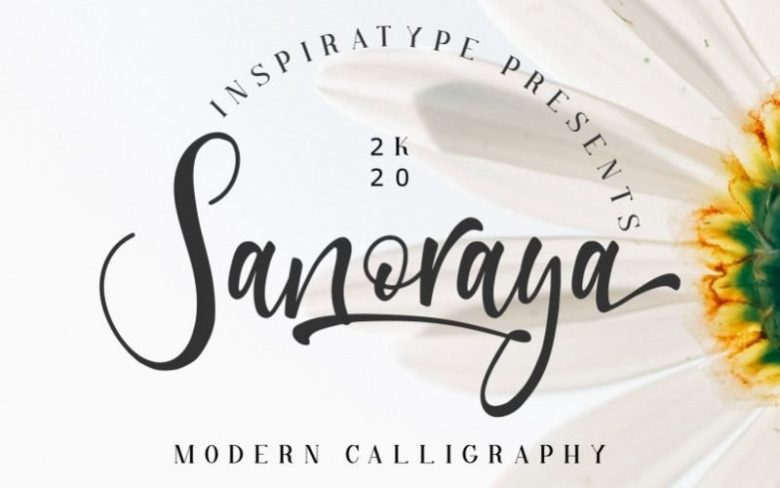
Sanoraya Calligraphy Font
Sanoraya is an incredibly distinct, delicate and timeless handwritten font. It looks stunning on wedding invitations, thank you cards, quotes, greeting cards, logos, business cards and every other design which needs a handwritten touch.